How to Use Urdu Fonts in Canva – Complete Guide for Beginners
To use a proper Urdu font in Canva, download a Nastaliq TTF font, then upload it through Brand Kit → Brand fonts → Upload a font — after that it appears in the font list of every design. One honest catch: font upload is a paid-plan feature (Canva Pro, Teams, Education or Nonprofits); free accounts cannot upload font files. This guide covers the upload steps, what free users can do instead, and how to fix the alignment problems Urdu text often hits in Canva.
What You Need Before You Start
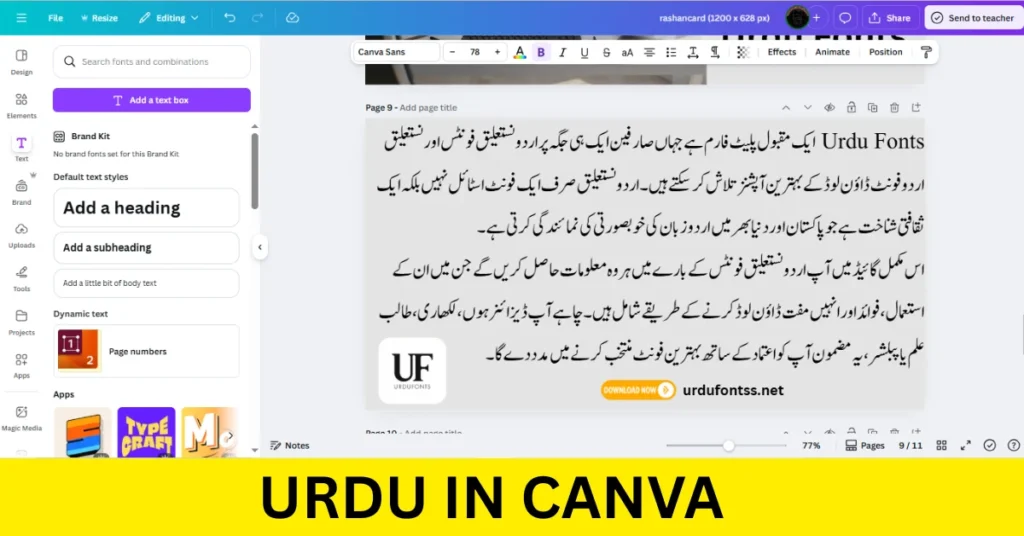
How to Add an Urdu Font in Canva — Step by Step
Where to Download Urdu Fonts for Canva
Canva Free vs Paid Plans for Urdu Fonts
Canva’s built-in library does contain some fonts that support Urdu script, but high-quality Nastaliq choices are very limited, and rendering of complex ligatures is not always reliable. Uploading your own Nastaliq font is what unlocks professional results — and uploads are restricted to paid plans (Pro, Teams, Education, Nonprofits). If you are on the free plan, you have two workable options: use the best built-in Urdu-supporting font you can find for short text, or design the Urdu headline as styled text with our Cute Fonts Text Generator and place it as an image — fine for thumbnails and posts, though image text cannot be edited later. If you design Urdu content regularly, a paid plan pays for itself in time saved.
Best Urdu Fonts to Use in Canva
| Urdu Font | Style | Best Use in Canva |
|---|---|---|
| Jameel Noori Nastaleeq | Classic Nastaliq | Poetry posts, books, formal designs |
| Jameel Noori Nastaleeq Kasheeda | Stretched Nastaliq | Headlines and wide titles |
| Urdu Nastaliq Unicode Regular | Clean Nastaliq | Articles, quotes, longer text blocks |
| Nafees Nastaleeq | Clean Nastaliq | News-style posts and blogs |
| SF Visakh | Modern display | YouTube thumbnails and bold headings |
Common Problems and Fixes
| Problem | Cause | Fix |
|---|---|---|
| Urdu text aligns left or the line order looks wrong | Canva defaults to left-to-right layout | Select the text box and set alignment to right; keep Urdu and English in separate text boxes |
| Letters appear separated or broken | The font’s ligature shaping is not rendering, or the file is a non-Unicode font | Re-download the font’s Unicode version from its font page and upload that file instead |
| Uploaded font does not appear in the list | Upload belongs to a different Brand Kit, or the editor needs a refresh | Check you are in the same Brand Kit you uploaded to, then refresh the editor |
| “Upload a font” option is missing | Free-plan account | Uploads need a paid plan (Pro, Teams, Education, Nonprofits) — or use the free workarounds above |
If the same font also misbehaves in other apps, our common Urdu font problems and fixes guide covers installation and rendering issues beyond Canva.
Design Tips for Urdu Text in Canva
- Give Nastaliq room: increase line spacing — stacked ligatures clip if lines sit too tight.
- High contrast wins: light text (white, soft yellow) on dark backgrounds reads best, especially in thumbnails.
- One Urdu font per design in most cases; pair a display font for the headline with nothing else Urdu.
- Do not mix English inside an Urdu text box — separate boxes keep both directions correct.
- Check at small size before exporting: a thumbnail is judged at a glance, on a phone.
Final Words
Upload one good Nastaliq font to your Brand Kit and Canva becomes a genuinely Urdu-capable design tool — thumbnails, posts, presentations and printables all improve at once. If you are setting the same fonts up on your computer too, our PC install guide and Android install guide cover those steps.
Frequently Asked Questions (FAQs)
Can I use Urdu fonts in Canva for free?
You can design Urdu text on the free plan using Canva’s built-in fonts, but you cannot upload your own font files — uploads are a paid-plan feature (Pro, Teams, Education, Nonprofits). The guide above lists free workarounds.
How do I upload an Urdu font to Canva?
On a paid plan: open Brand Kit, scroll to Brand fonts, click “Upload a font”, choose your TTF or OTF file, and confirm you hold the licence. The font then appears in the font dropdown of every design.
Does Canva support Nastaliq fonts properly?
Yes, once a genuine Unicode Nastaliq font is uploaded, Canva shapes and displays it correctly in most designs. If letters appear separated, the file is usually a non-Unicode version — download and upload the Unicode version instead.
Why does my Urdu text look broken or misaligned in Canva?
Usually one of two causes: the text box is set to left alignment (switch it to right, and keep English in a separate box), or the font file does not shape ligatures correctly. The problems table above walks through both fixes.
What is the best Urdu font for Canva thumbnails?
A bold, high-contrast style readable at small sizes — SF Visakh for a modern look, or Jameel Noori Nastaleeq Kasheeda for a classic stretched headline. Preview your exact title text before committing.
Can I upload Urdu fonts in the Canva mobile app?
Yes — on a paid plan, open Brand Kit → Fonts in the app and tap + to upload. Fonts uploaded on mobile and desktop sync to the same Brand Kit.
Can I use uploaded Urdu fonts for commercial projects?
That depends on the font’s licence, not on Canva. Canva asks you to confirm your rights at upload for this reason. Check the licence note on the font’s download page — some fonts are personal-use only.